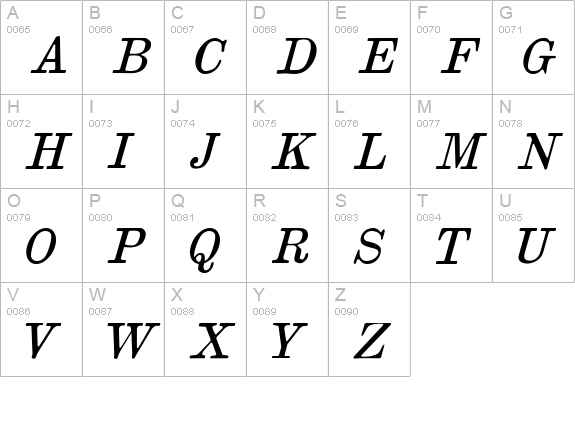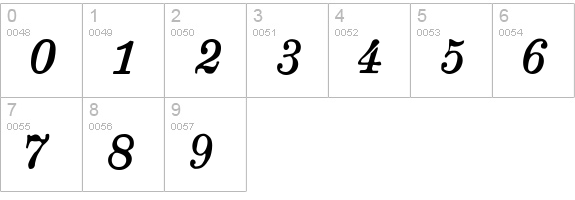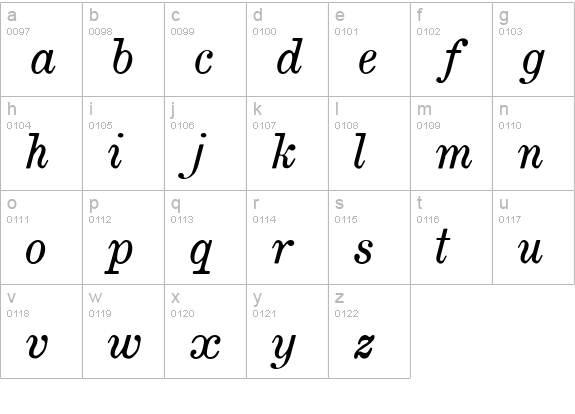
Brokgauz & Efron Italic Font Details
Brokgauz & Efron Italic is a distinctive, italic variant in the Brokgauz typeface family \xE2\x80\x94 well suited to design and typography projects.
The Brokgauz & Efron Italic font is a beautifully crafted typeface that exudes elegance and sophistication. Its sleek and stylish design is perfect for adding a touch of class to any project. The italicized letters of this font have a unique flair that sets them apart from other fonts. What makes Brokgauz & Efron Italic font even more appealing is that it is available for free download at FontsMarket.com. Whether you're working on a professional presentation, a creative project, or simply looking to elevate your designs, this font is a fantastic choice. With its smooth lines and classic look, Brokgauz & Efron Italic font is sure to make a statement and leave a lasting impression. Download it now and enhance your design projects with this exquisite typeface.